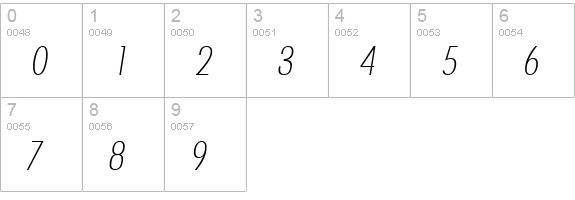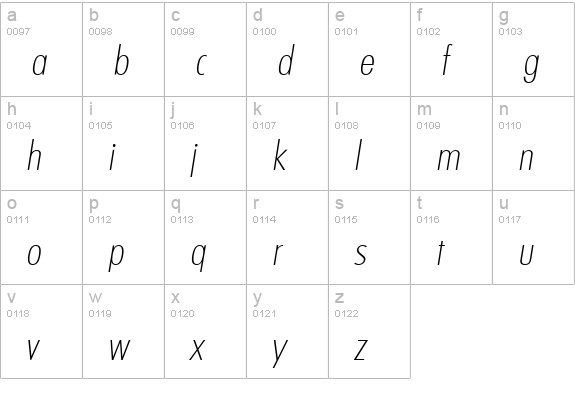
LimerickCdSerial-Xlight-Italic is a distinctive, italic variant in the LimerickCdSerial typeface family \xE2\x80\x94 well suited to design and typography projects.
LimerickCdSerial-Xlight-Italic font is a sleek and elegant typeface that exudes sophistication and modernity. Its delicate italic style adds a touch of flair to any design project, making it perfect for branding, editorial, and digital applications. With its clean lines and subtle curves, this font is sure to make a statement while maintaining readability and professionalism. Best of all, LimerickCdSerial-Xlight-Italic font is available for free download at FontsMarket.com. Whether you're a designer looking to add a fresh look to your creations or a business owner in need of a stylish font for your branding, this font is the perfect choice. Don't miss out on the opportunity to elevate your projects with this beautiful typeface - download LimerickCdSerial-Xlight-Italic today!